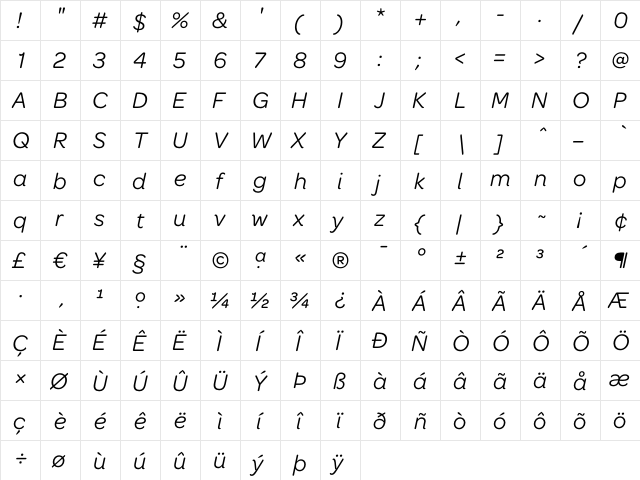
Omnes Regular Italic
Design Context for Omnes Typeface
Omnes offers clean, dependable letterforms without strong stylistic allegiance, making it a practical choice for designers who need flexibility. The slanted form adds forward momentum and visual energy.
Pro Tip: Try Omnes for annotation and caption copy alongside an upright companion — the contrast in angle creates a dynamic but ordered typographic system.